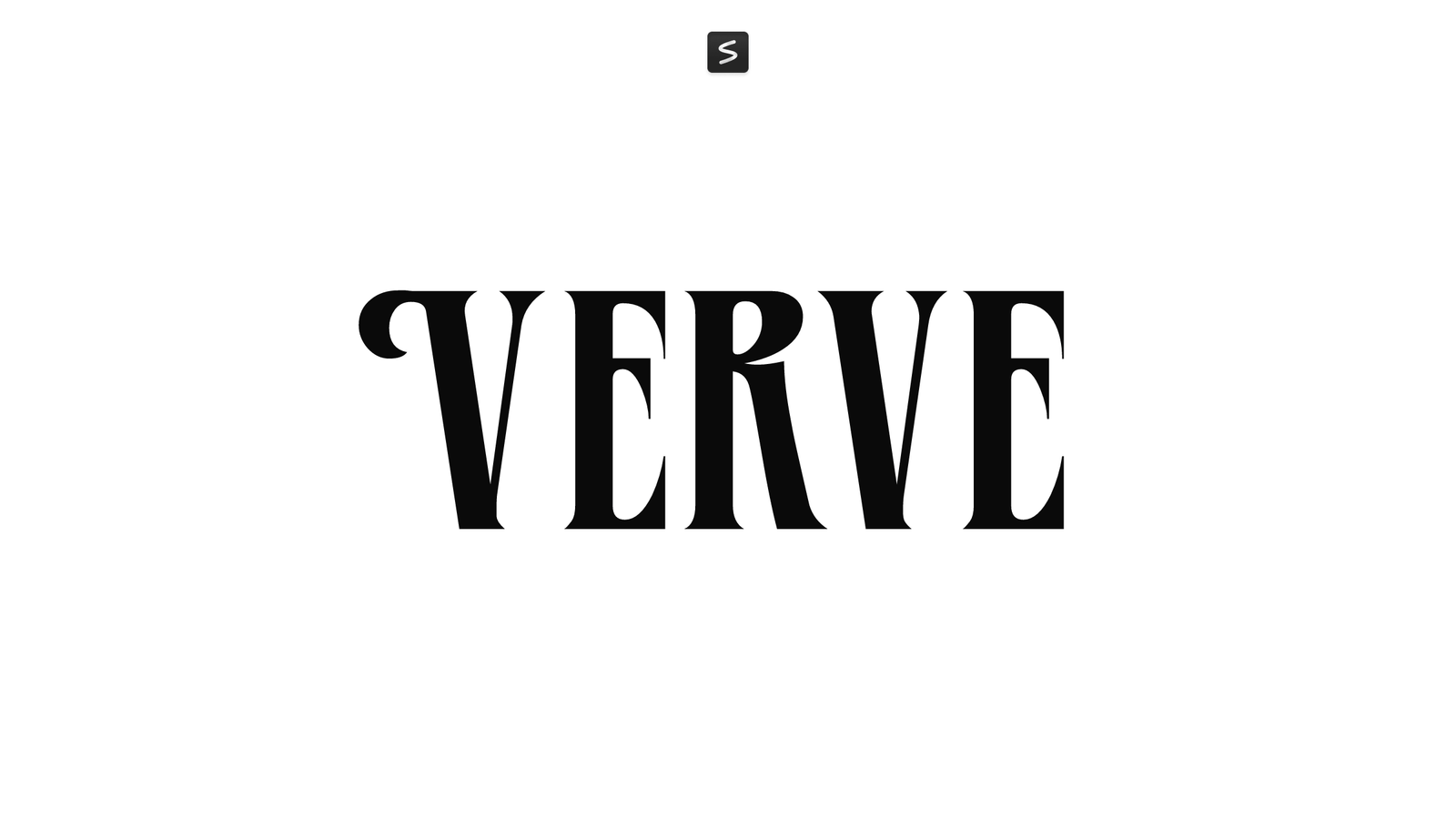
Verve is a bold geometric display font designed by Dieter Steffmann, drawing heavy inspiration from 1920s and 1930s Art Deco design. Its tall proportions and sharply angular letterforms give it a distinctive, architectural quality that feels both vintage and striking. The geometric precision of each character, clean lines, sharp terminals, and bold weight, captures the optimism and forward-looking spirit of early modernist typography.
The font works well for vintage-inspired headlines, posters, branding, and editorial layouts where you need type with character and visual weight. Its angular construction makes it particularly effective at larger sizes, where the geometric purity of each letter becomes apparent. Verve brings a sense of refined elegance and historical depth to any design that benefits from that interwar aesthetic.